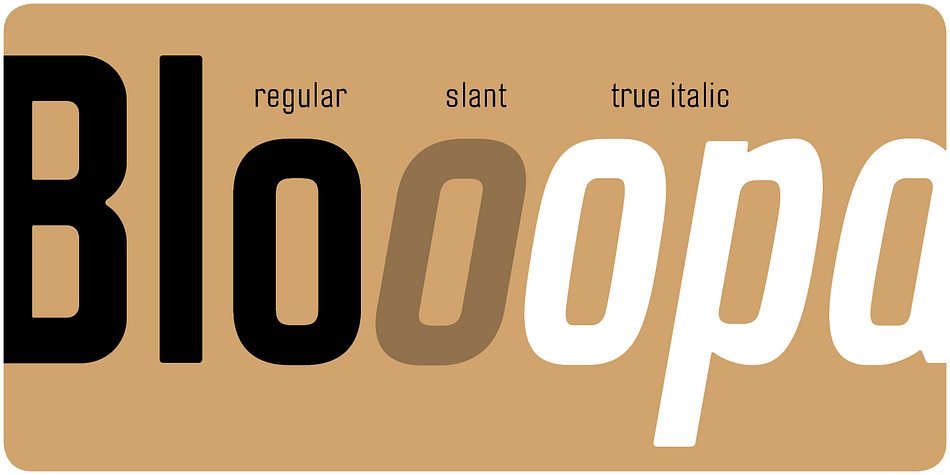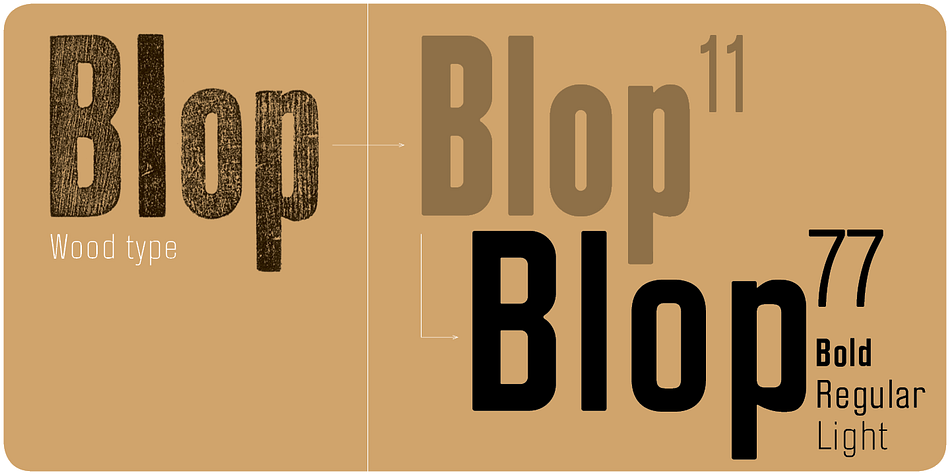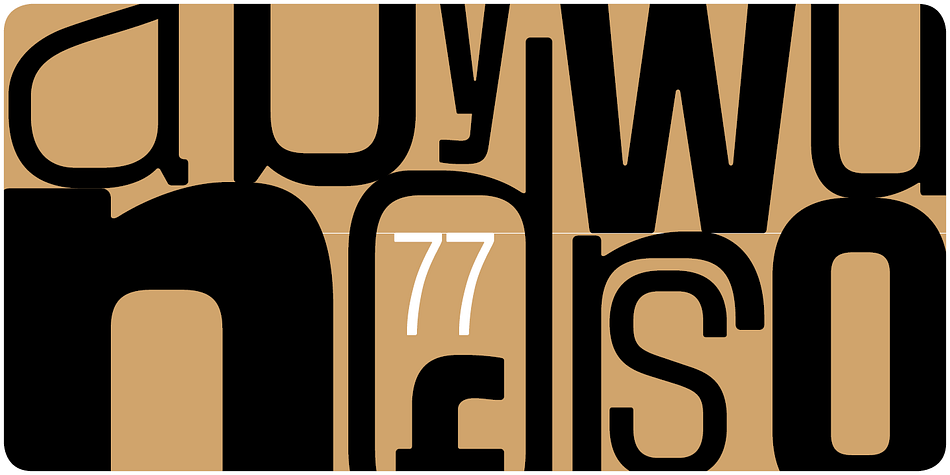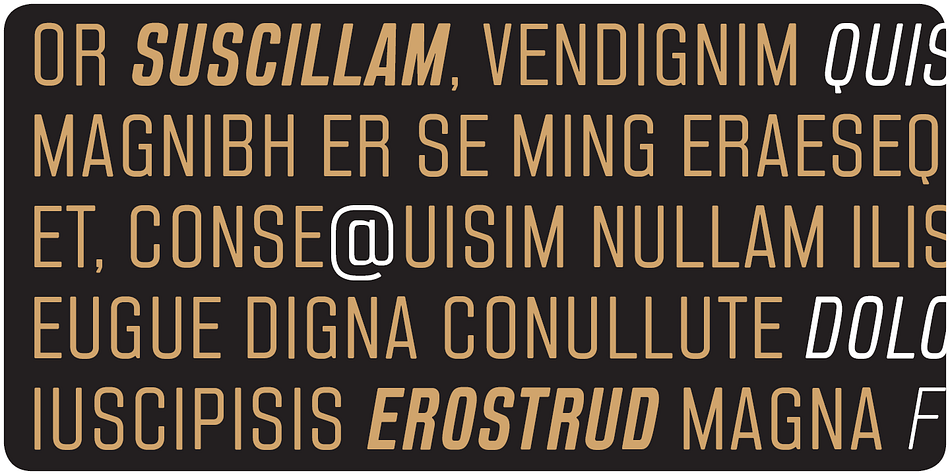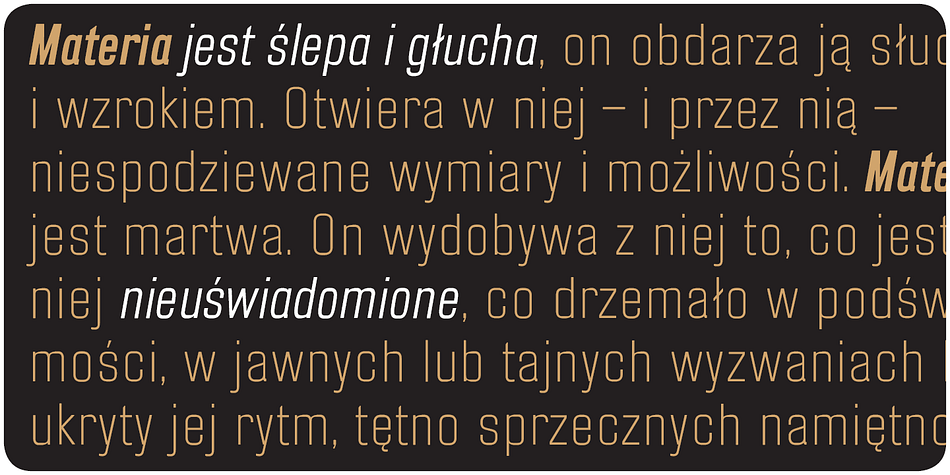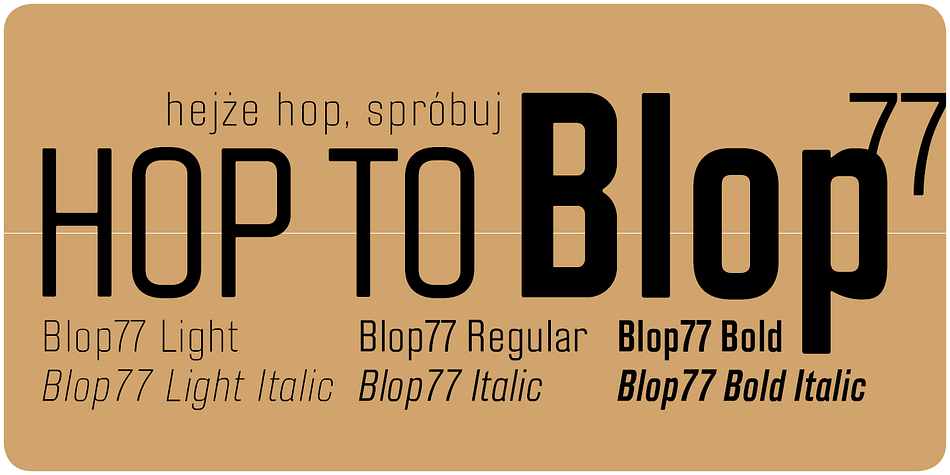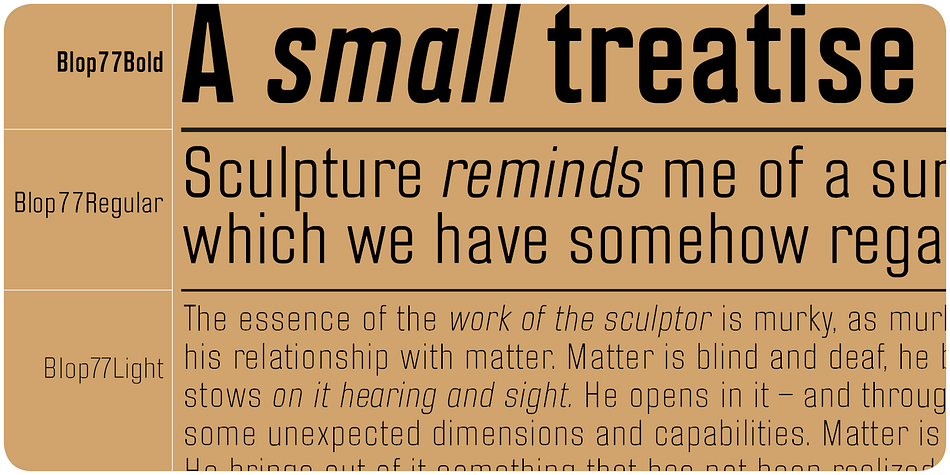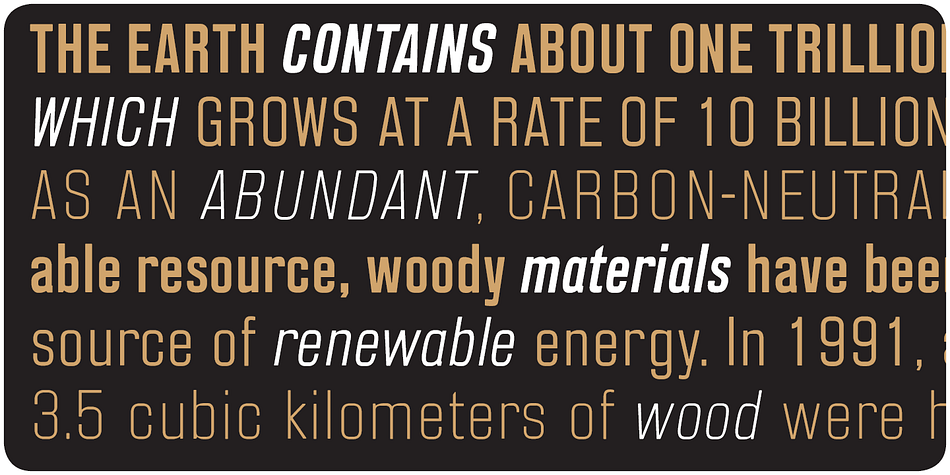
Designed by Paweł Osial, Blop 77 is a sans serif font family. This typeface has six styles and was published by Osialus.
Blow 77 is a geometric sans-serif type family, consisting of 3 weights and matching italics. It is based on the Blop 11, being its expanded version.
Blow 77 is well-suited to headlines and short text.